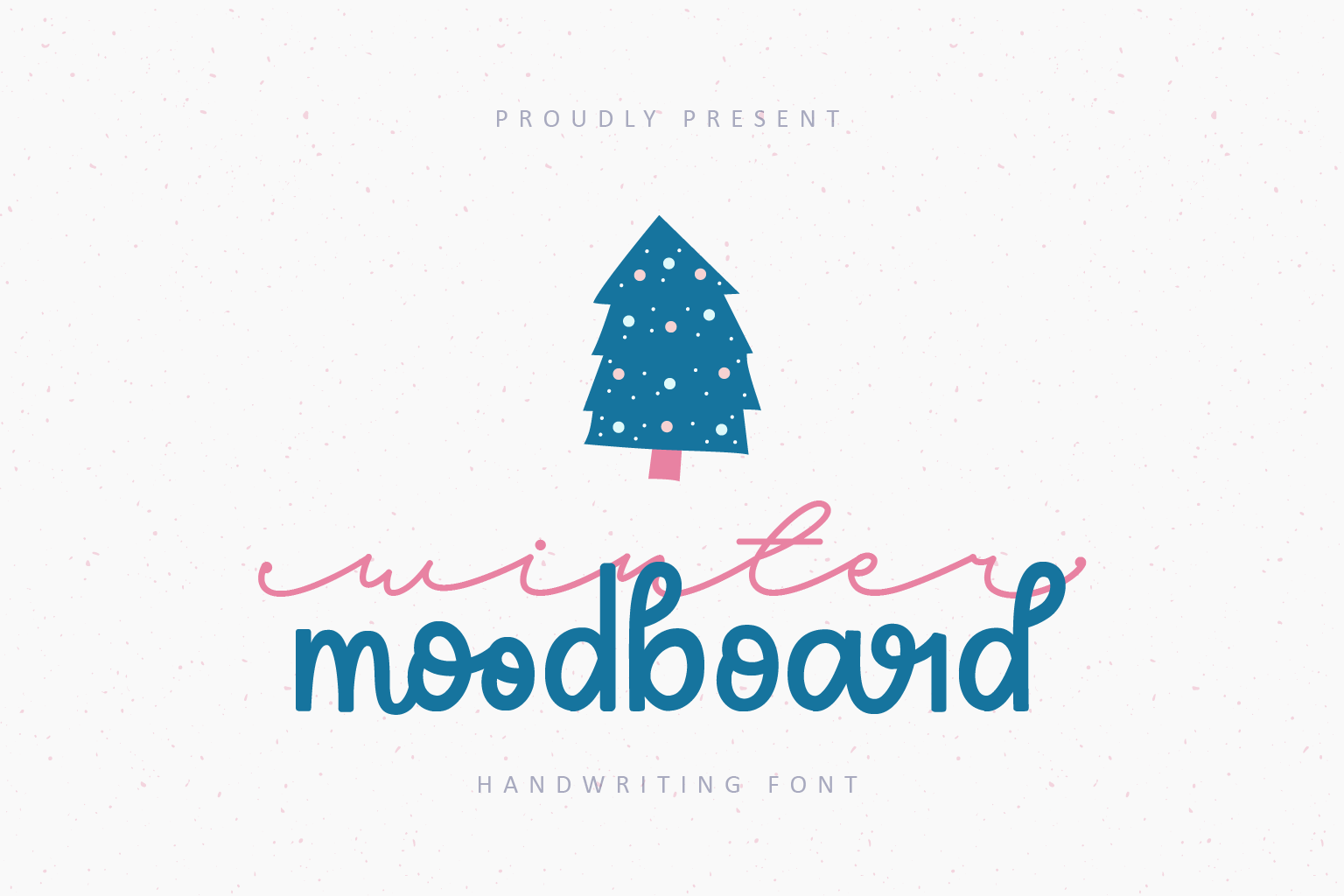
Winter Moodboard | Handwritten Font
Winter Moodboard
This font is a delicate and vintage styled handwritten font. It will add a luxury spark to any design project that you wish to create! Thanks for checking out my shop, and feel free to get in touch! suntype07@gmail.com